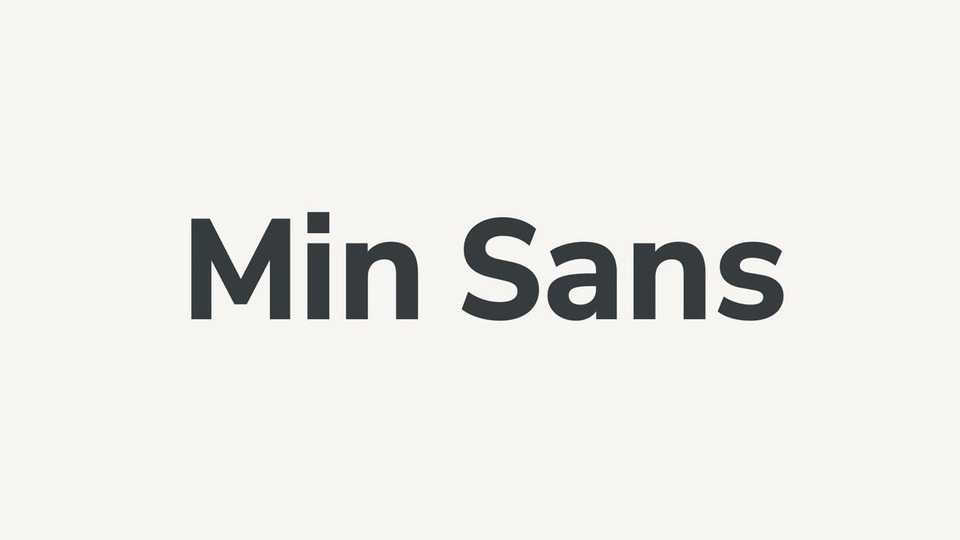
Download Min Sans typeface, a finely balanced modern sans serif font family designed to solve the inconvenience of Noto Sans when working on the UI, and is a custom font of Noto Sans and Nunito Sans.
Designer: Jinseong-Kim